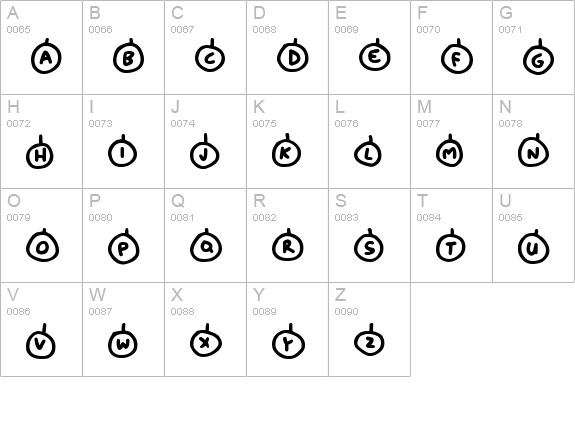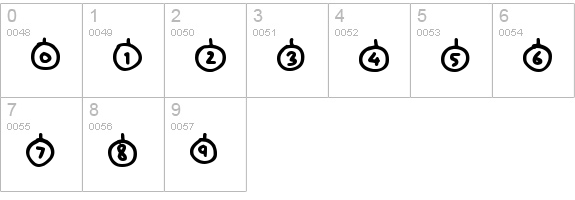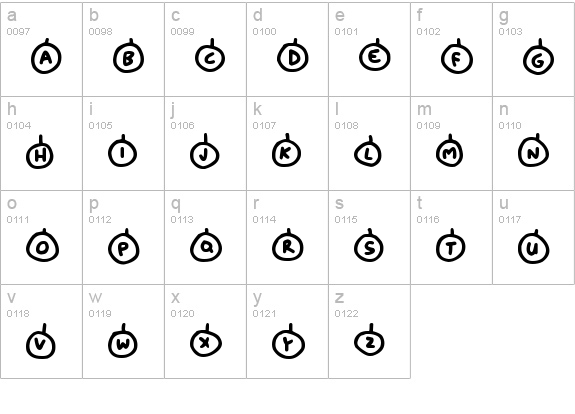
Baubles Font Details
Baubles is a free for personal use font in the Holiday > Christmas category, designed by Darrell Flood. It has been downloaded 175 times and is available for Windows, Mac and Linux.
Baubles font is a delightful and whimsical typeface that will add a touch of charm to any project. With its playful curves and elegant strokes, Baubles font is perfect for creating eye-catching designs that stand out from the crowd. Whether you're working on a holiday greeting card, a party invitation, or a fun logo, Baubles font will bring a sense of joy and creativity to your work.